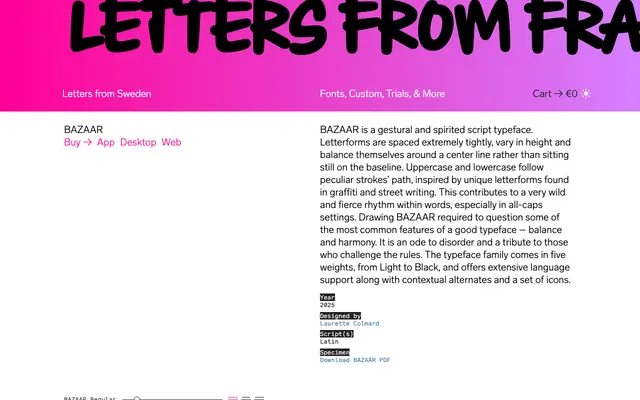
Bazaar
Letters from Sweden · Laurette Colmard · 2025
Bazaar specimen from Letters from Sweden
A five-weight gestural script by Laurette Colmard, drawn from graffiti and street writing with deliberately unstable letterforms that balance around a centre line rather than the baseline.
Letterforms vary in height and lean into disorder rather than conventional harmony, producing a fierce rhythm particularly visible in all-caps settings. The family spans five weights from Light to Black, and includes 38 contextual alternates, 6 ligatures, a set of arrows, icons and broad Latin Extended language support. It is aimed squarely at display and campaign work where visual energy and rule-breaking character are the point.
A gestural, upright script inspired by graffiti and street writing, with variable letterform heights and tight spacing that produce a wild, rhythmic texture. The foundry describes it explicitly as a script typeface, and its irregular stroke paths and baseline behaviour confirm this classification.